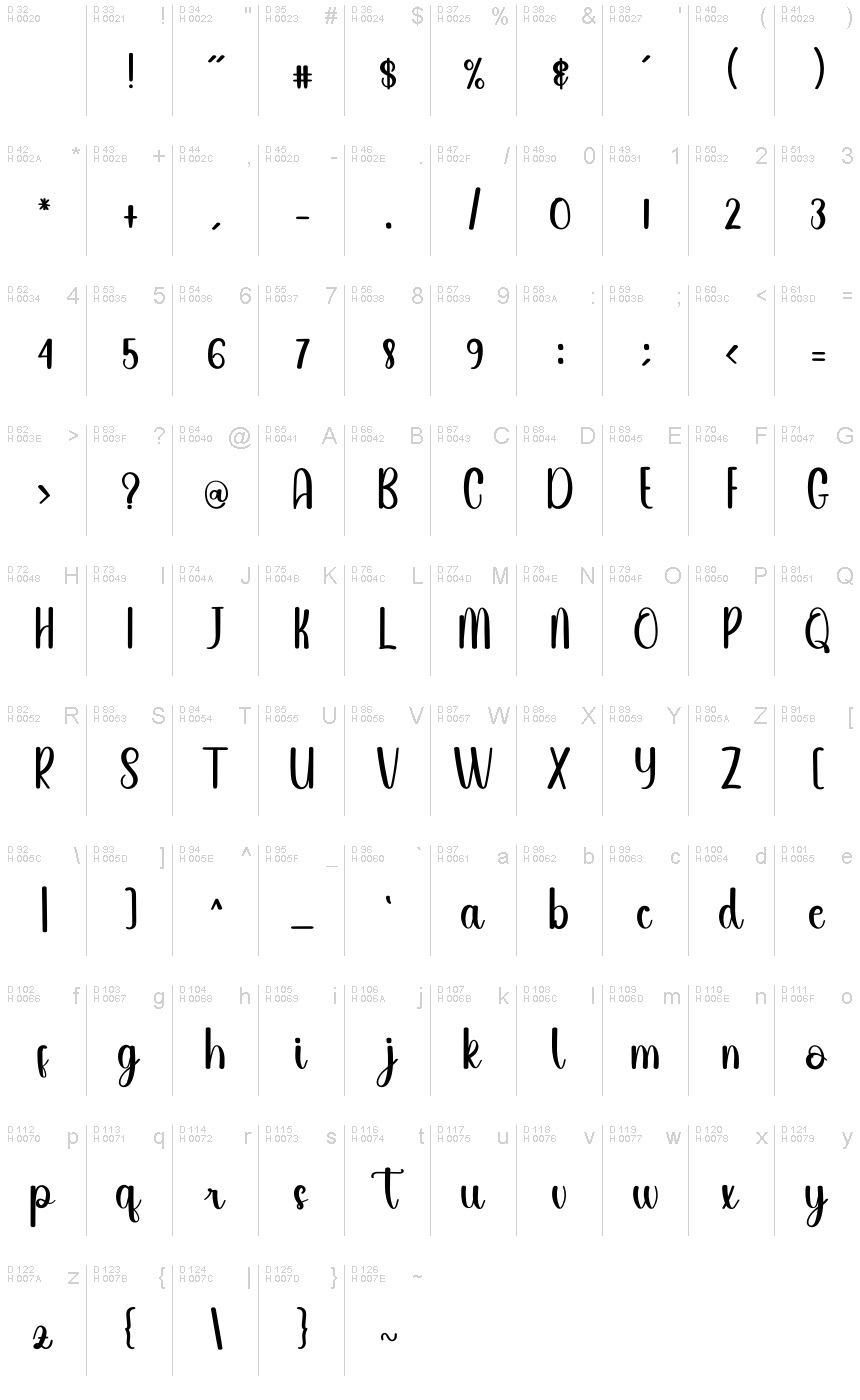
Eastey
Eastey, a captivating handwritten font crafted by PiPi Creative, exudes a sense of warmth and organic elegance. This condensed typeface boasts fluid strokes and a charming, playful personality, effortlessly blending the refined and the casual. The striking contrast between thick and thin lines, along with the graceful ligatures, imbue the Eastey font with a distinct personality that instantly captures the attention.
This versatile font lends itself to a wide range of design applications, from branding and packaging to editorial and social media content. Its unique character makes it an excellent choice for projects seeking a touch of handcrafted authenticity, whether in the realm of lifestyle, fashion, or artisanal products. Eastey's adaptability allows designers to create impactful typographic layouts that convey a sense of approachability and personal connection with the audience.